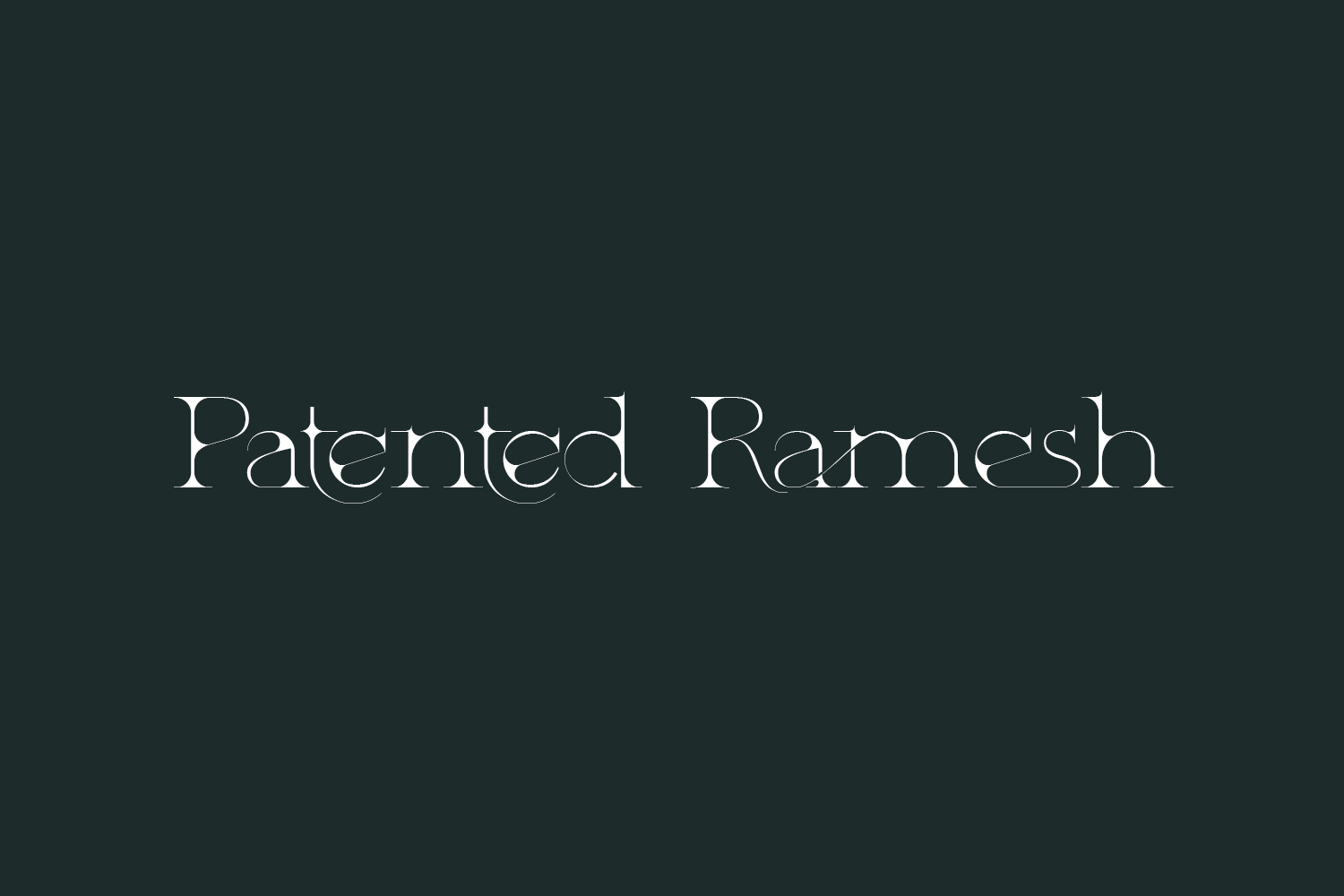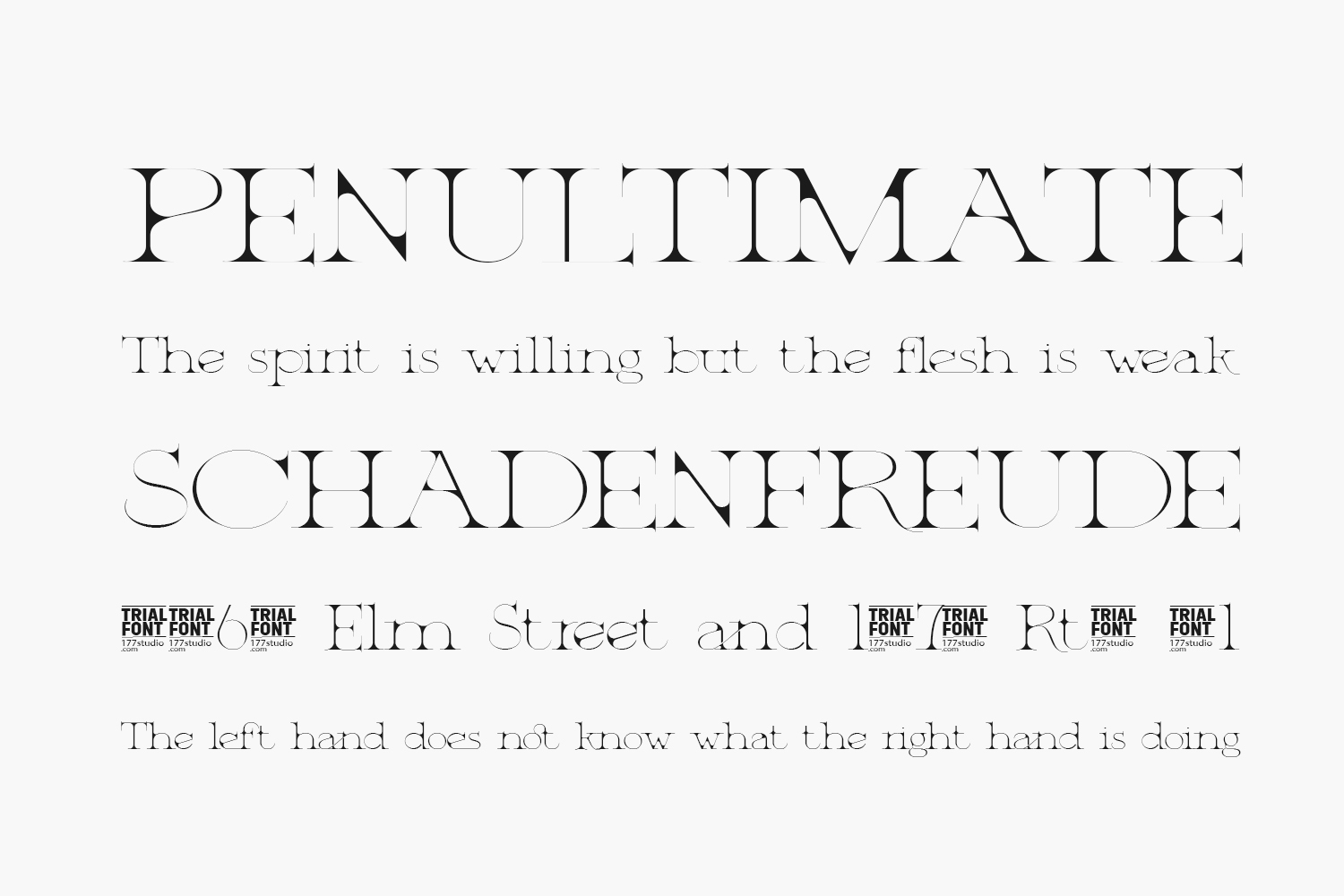
Discover the exclusive Patented Ramesh Free Font, a stylish serif font with a distinctive and unique shape. Elevate your designs with its original aesthetic, providing an exquisite touch to any creative project you have in mind. Download the font for free if you need it for personal use or purchase the full version for commercial use.
Designed by 177Studio